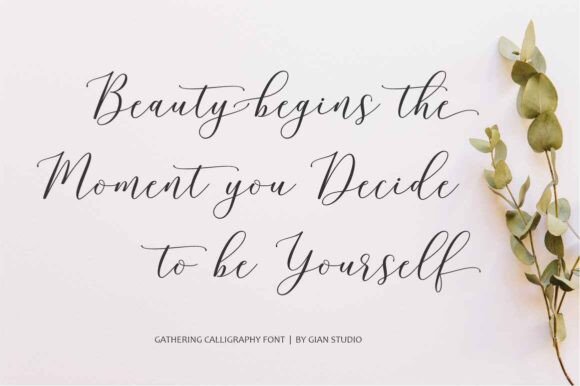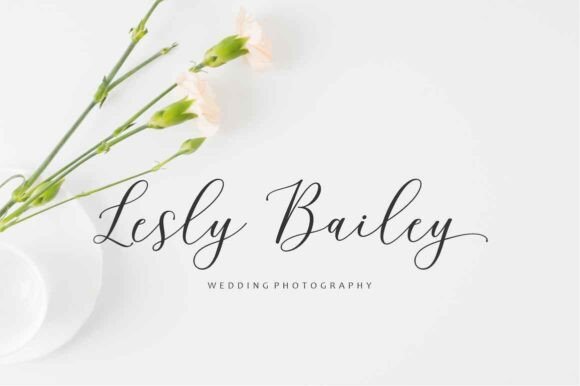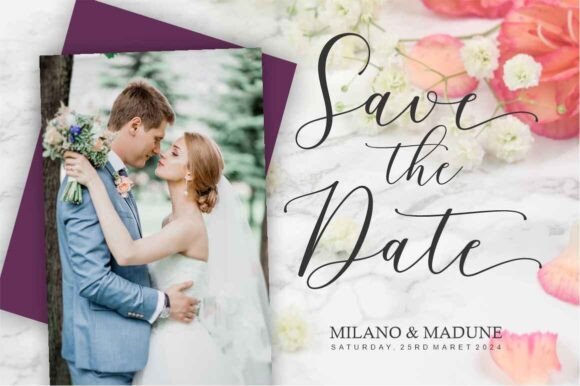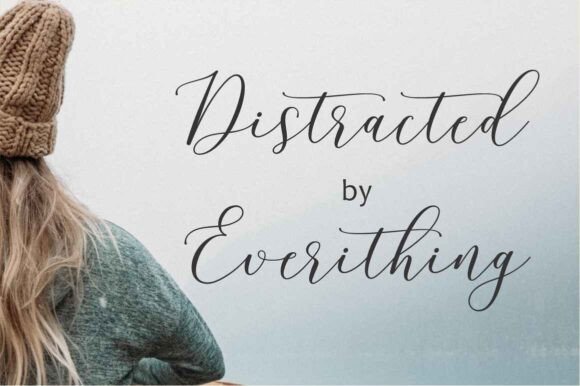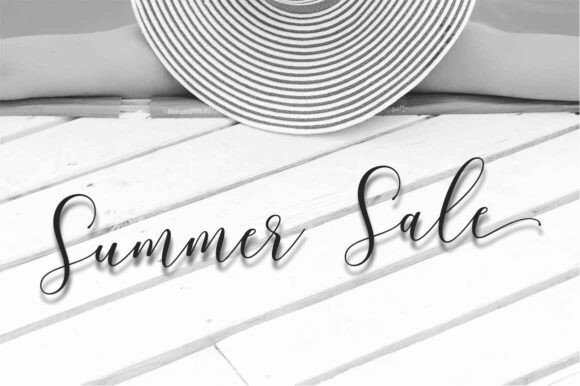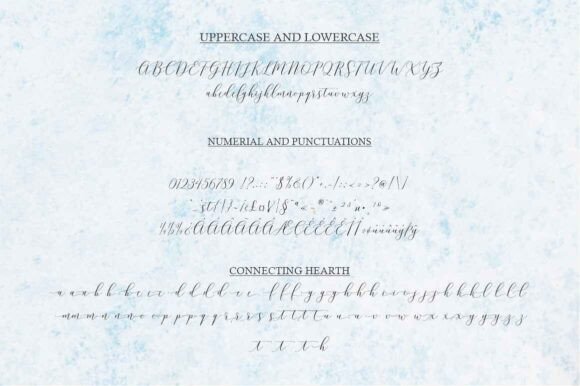
Introduction to Mervyn Font
Mervyn is likely a font designed to emulate the look of traditional calligraphy.
| 👤 Author | gianstudio12 |
Calligraphy fonts are characterized by elegant, flowing strokes that mimic the appearance of handwritten script produced by a skilled calligrapher These fonts are often used for formal invitations, wedding stationery, certificates, and other designs where a sophisticated and classic aesthetic is desired.
Key Features of Mervyn Font